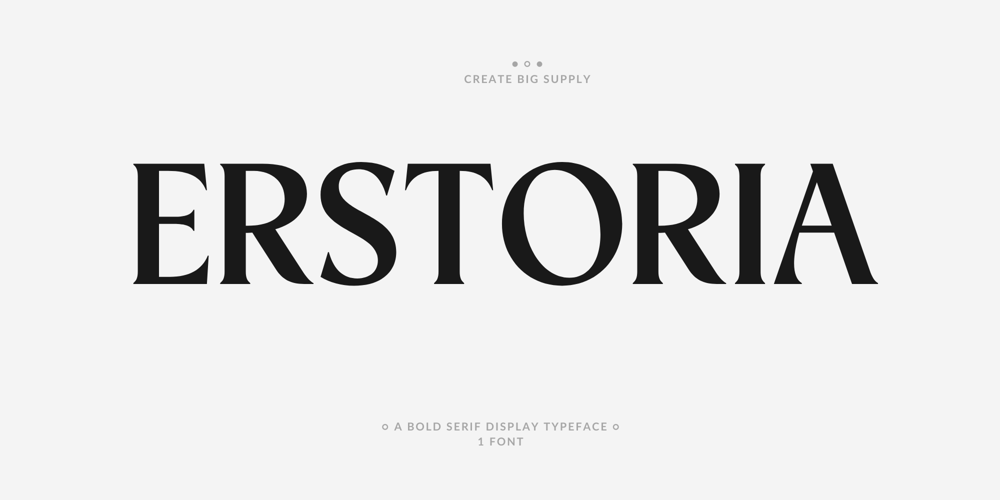
Erstoria
Erstoria font
Erstoria Font Family was designed by Irpan Maulana and published by Create Big Supply. Erstoria contains 1 styles and family package options. Erstoria features both uppercase and lowercase characters, offering versatility for a wide range of design applications. Whether you’re creating attention-grabbing headlines, striking posters, or elegant branding materials, Erstoria’s bold serif style adds a touch of sophistication to your work.With a comprehensive set of numbers and punctuations, Erstoria ensures clear and effective communication of your message across various platforms and mediums. Its multilingual support allows you to reach audiences worldwide seamlessly, making it perfect for global projects.Equipped with PUA Encoding, Erstoria provides easy access to special characters, enhancing your design flexibility and creativity.Explore Your Font Source today and unlock the full potential of Erstoria to elevate your designs and leave a lasting impression.